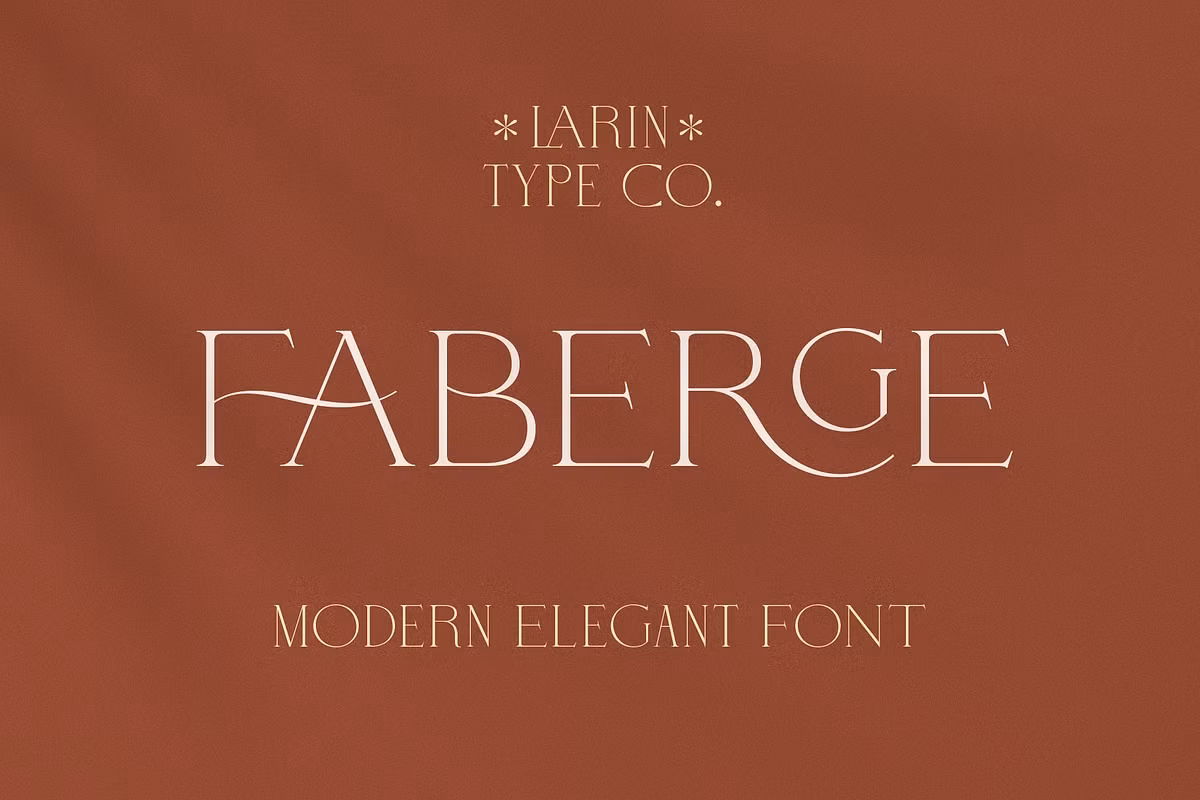
Faberge Font Free Download is a luxurious and elegant serif typeface inspired by classic craftsmanship and timeless beauty. With its refined details, graceful curves, and high-contrast strokes, Faberge is perfect for high-end branding, editorial design, fashion labels, wedding invitations, and upscale packaging.
This font captures the sophistication of old-world elegance while remaining fresh and modern. Whether you're creating a couture logo, a luxury product label, or a stylish magazine layout, Faberge adds class and finesse to every project.
Designers love Faberge for its regal aesthetic, clean readability, and versatility across digital and print. Want to bring premium elegance to your design work? Download Faberge Font Free Download and let your typography shine with opulence and sophistication.